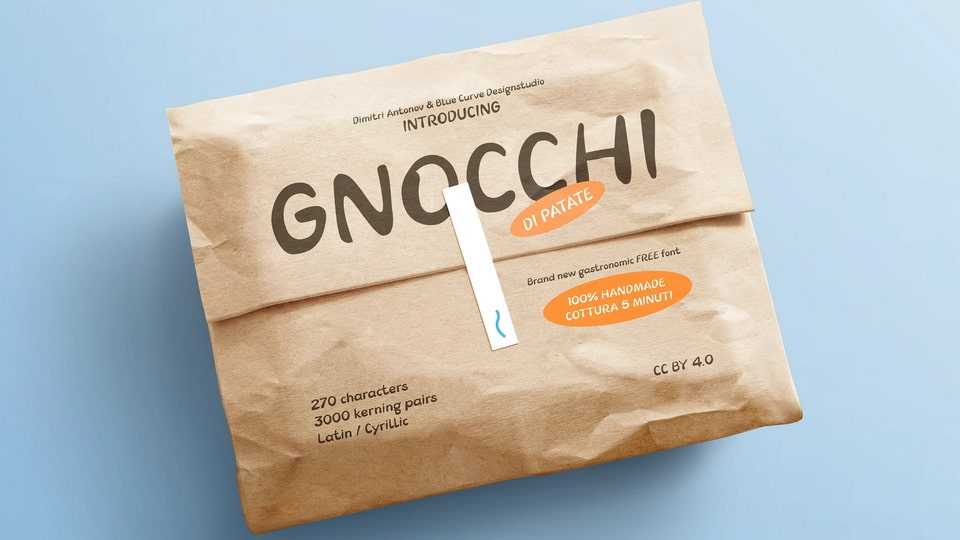
Download Gnocchi font, a warm, handcrafted gastronomic typeface inspired by Italian cuisine, homemade pasta, and the charm of traditional food packaging.
Designer: Dimitri Antonov